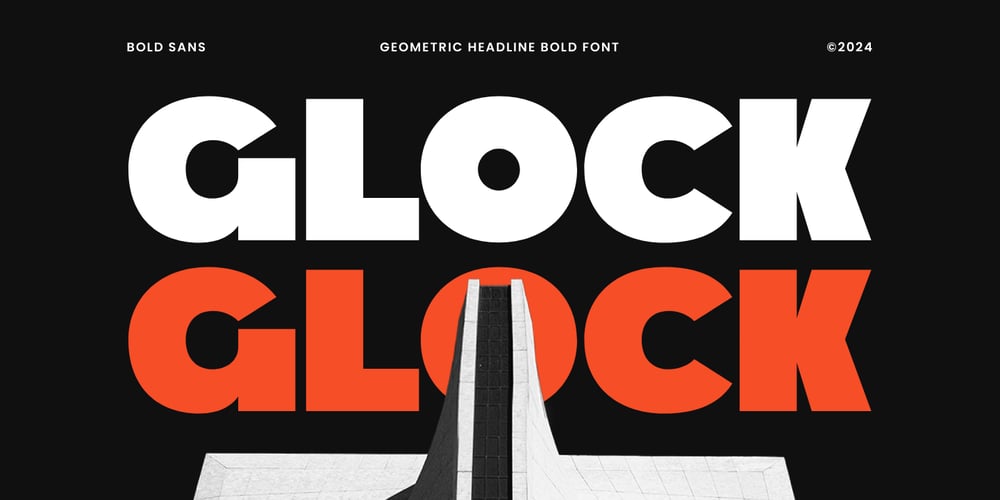
Glock Font Family was designed by Zamroni Hamzah and published by Sensatype Studio. Glock contains 2 styles and family package options. Glock, a Geometric Headline Bold Font that created special for Headline, Branding, Title and more stand out typography for Modern and Small space. It’s so perfect to add your style and headline overview for Modern and Professional theme. And specially for this font, we crafted for bold action style and modern feels so enjoy to create any project that will show your main idea out.Glock Geometric Headline Bold Font ready with: Characters prepared to get best results 4 files format already Preview as a inspirations that you can do with this font Ready with Uppercase & Lowercase characters Perfect for Headline needs Wish you enjoy our font. ๐